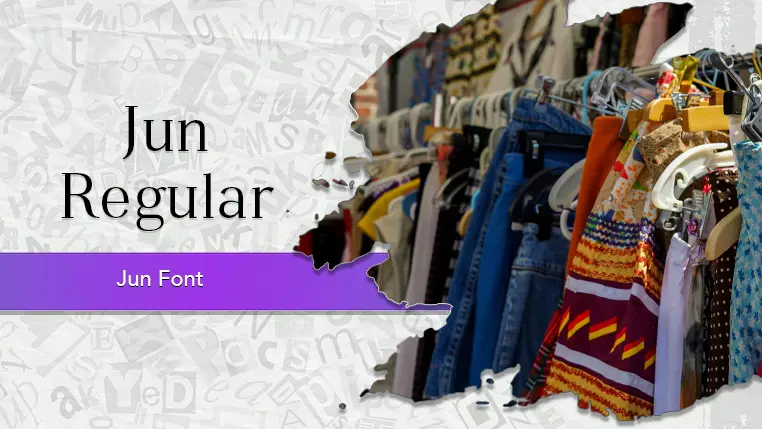
The Jun font family may be ideal for you if you enjoy working on an artistic design project. The lively, expressive look of this typeface, which was created by Vasiliy Shishkin, makes it ideal for Editorial layouts. The font's luxurious and contemporary feel makes it an excellent choice for creating a brand identity for high-end products, fashion, and other luxury goods. Jun's elegant and graceful letterforms make it ideal for creating beautiful invitations and announcements for weddings and other formal events. The font's sophisticated aesthetic can elevate the look of packaging for premium products, giving them a polished and luxurious feel. and other light-hearted visual projects.
Regular, Italic are the two primary font styles of the Jun font family. You may build dynamic, visually appealing text layouts with the distinct flair that each style offers. With crisp, readable lines and a relaxed tone.